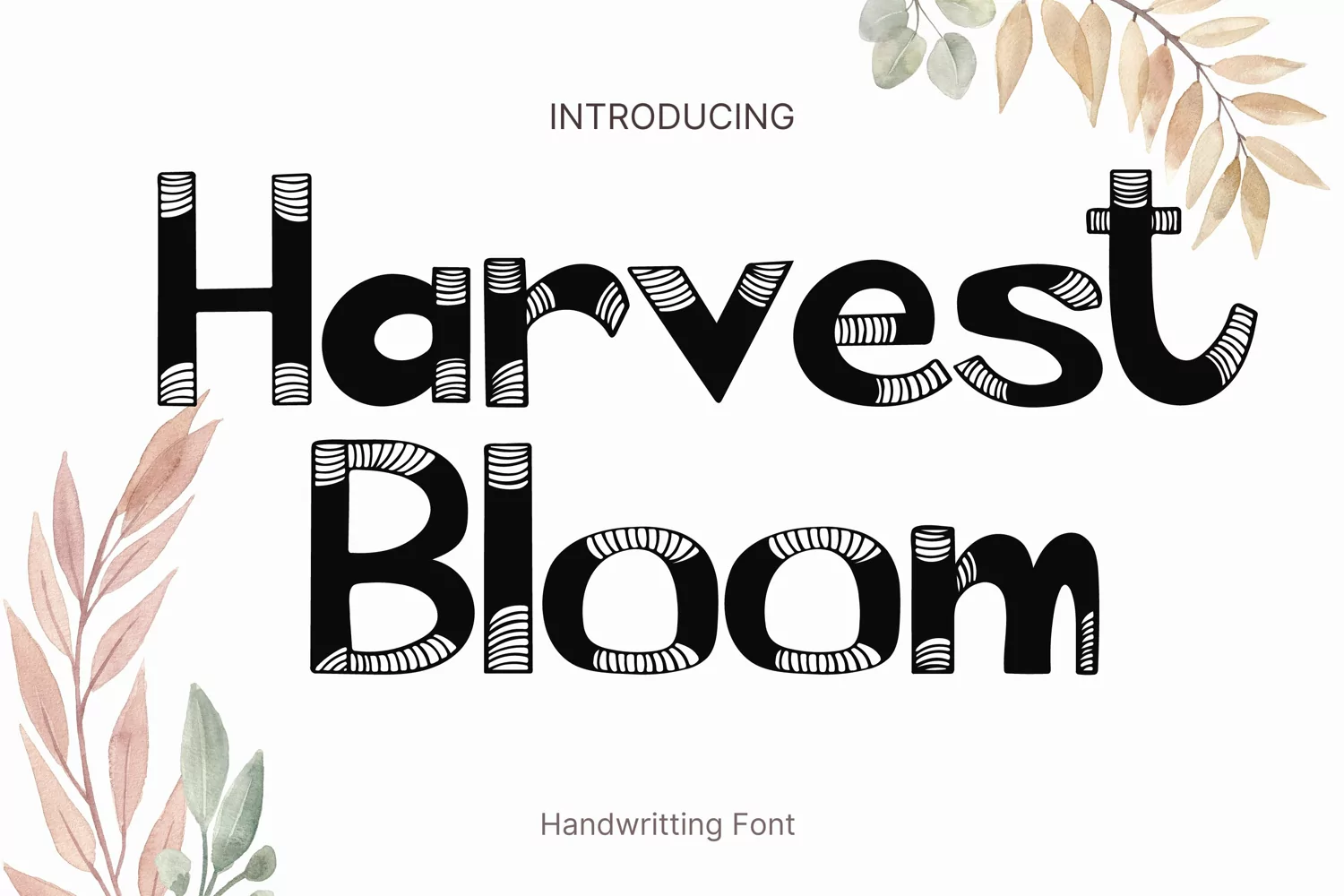
Harvest Bloom Style
HarvestBloom
Harvest Bloom Style is a whimsical and clean handwritten font. It can easily be matched to an incredibly large set of projects, so add it to your creative ideas and notice how it makes them stand out!